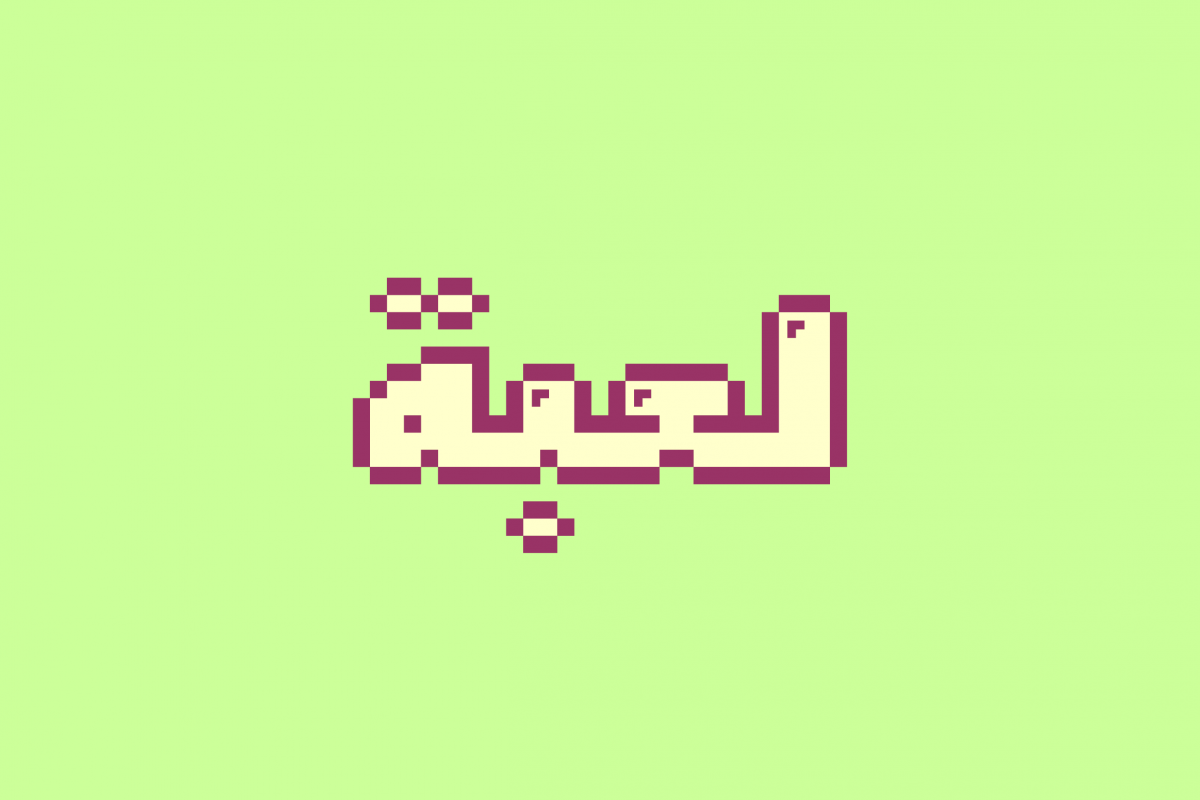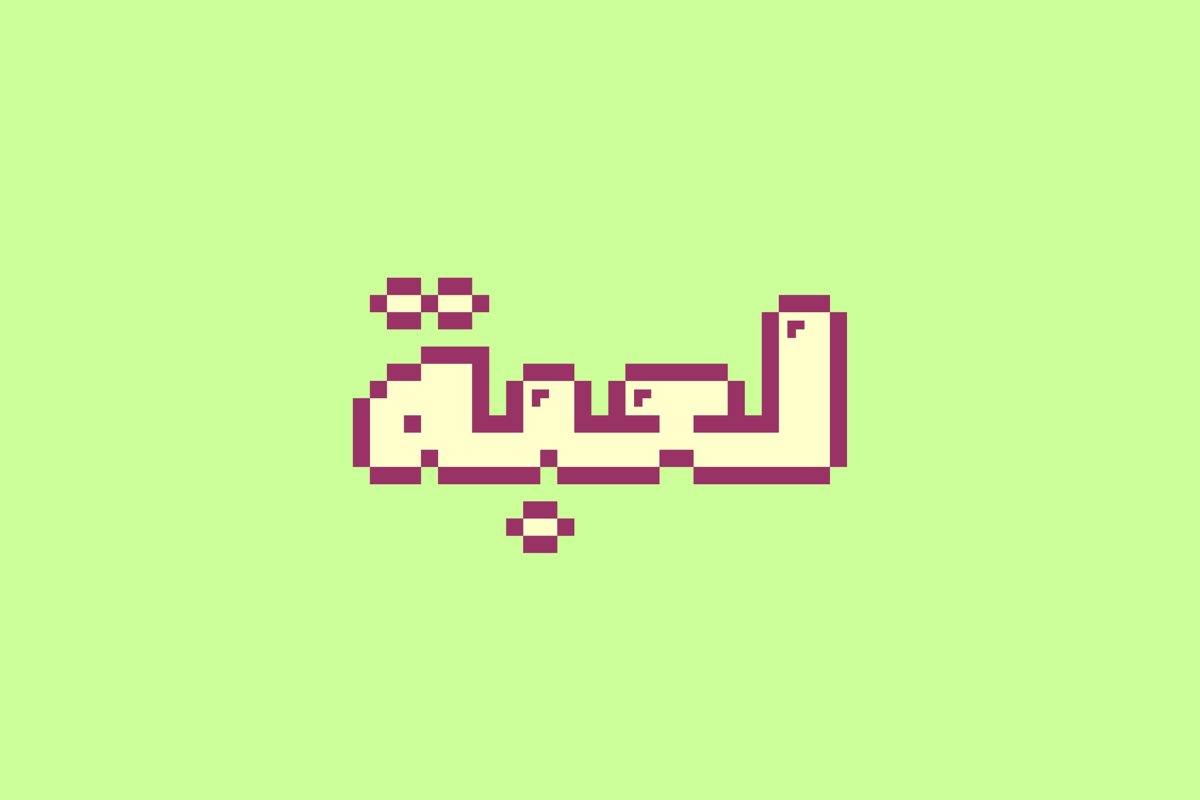
Loabah - Arabic Font
Loabah (the Arabic word for ‘Game' or ‘Toy’) is a pixelated Arabic font that is inspired by the 8-Bit graphic style. The font suits various range of creative projects including web design, advertising and branding. Loabah supports Windows, Mac and mobile applications.